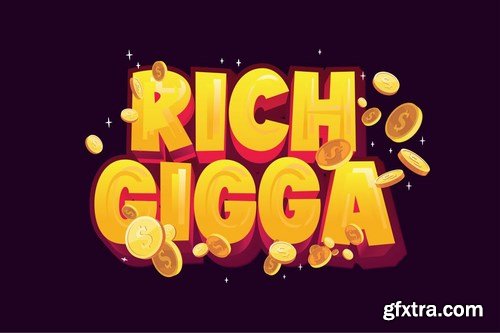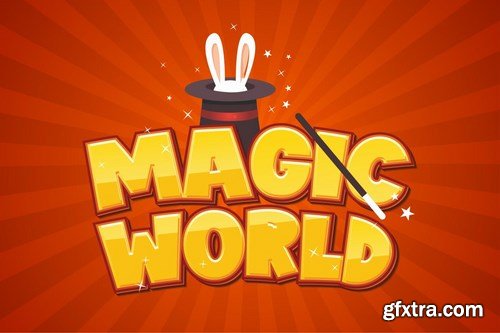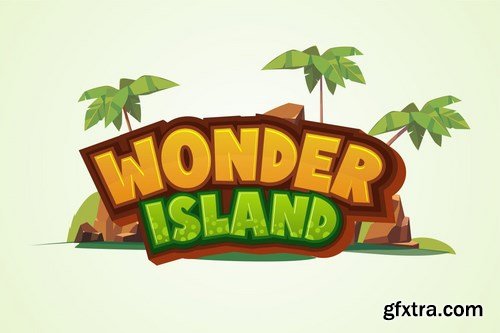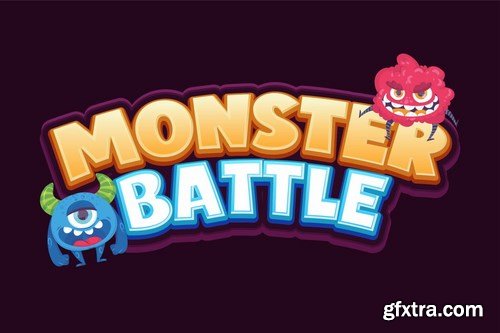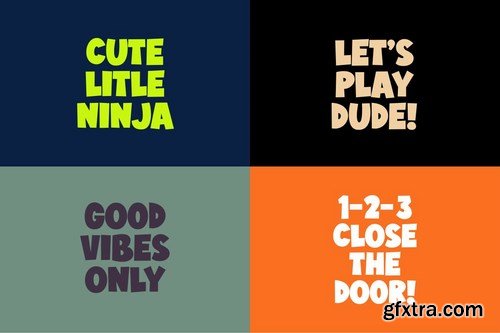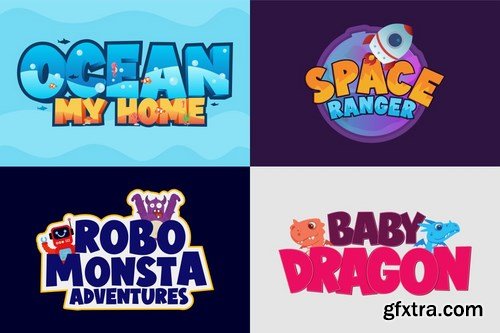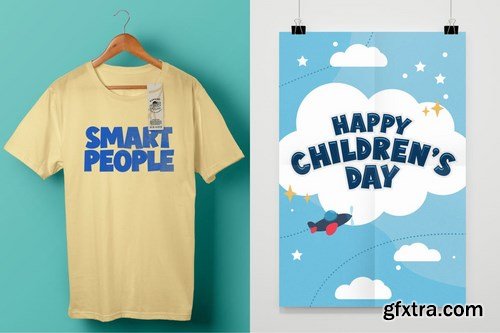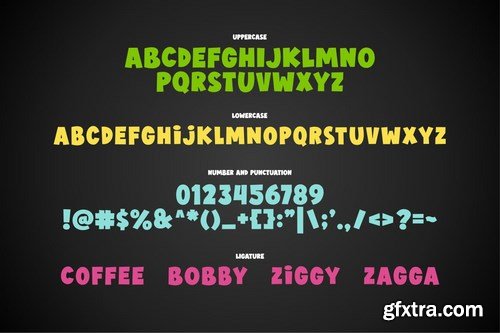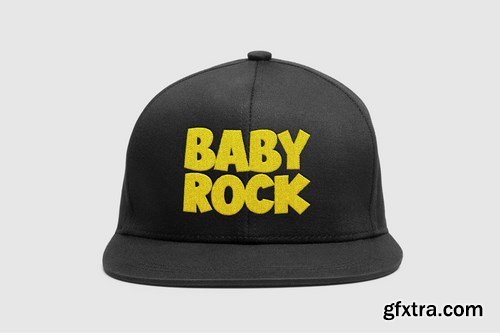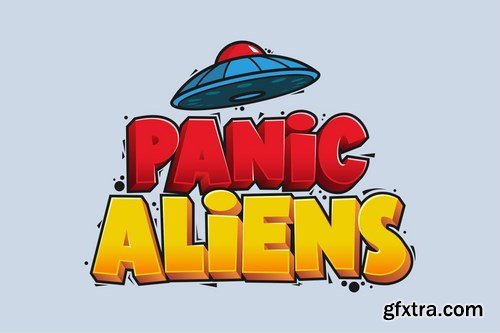
JIMMY BOYZ - Bold and FUN font
Introducting JIMMY BOYZ
JimmyBoys shout energy, enthusiasm, and happiness in everything written. You can definitely see the joy he brings toward your design. With bold stem, strong lines, sharp edges...JIMMYBOYZ feel no fear. Suit perfectly for poster, games title, cartoon movie, credit title, magazine, and so on.